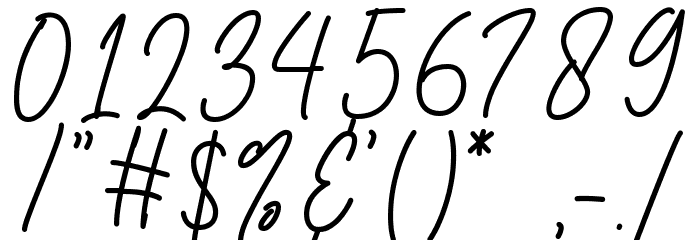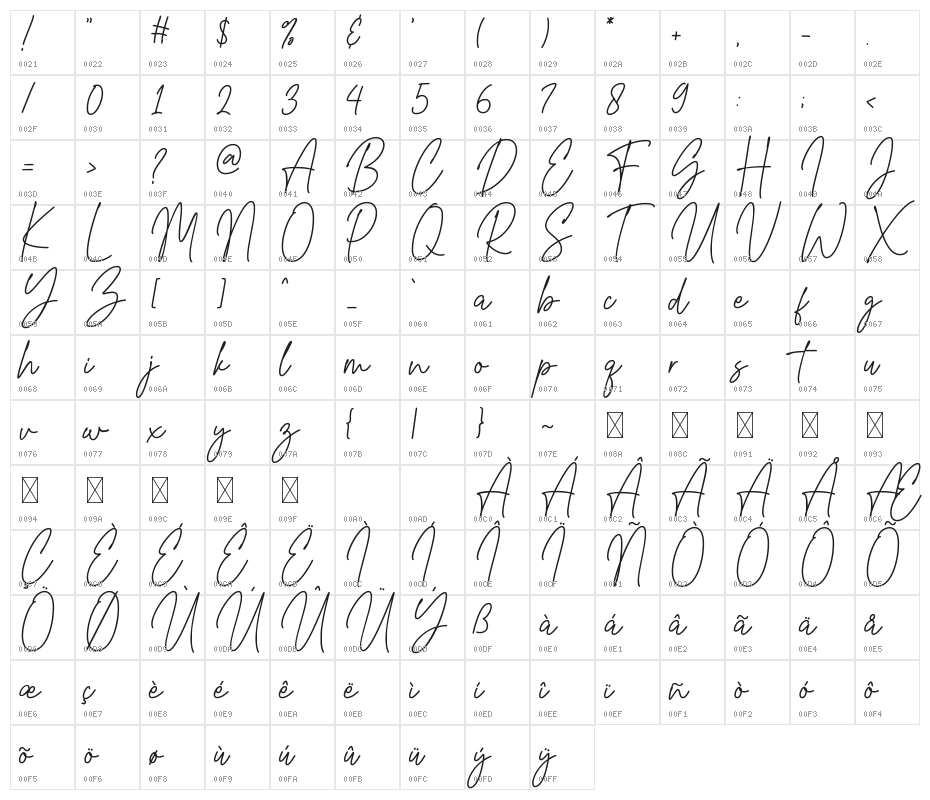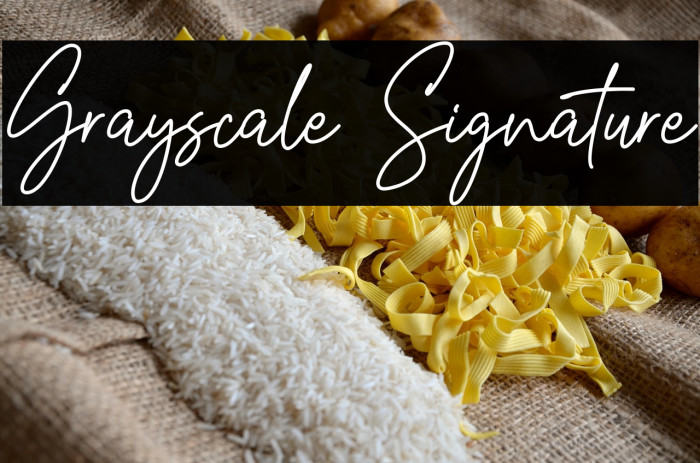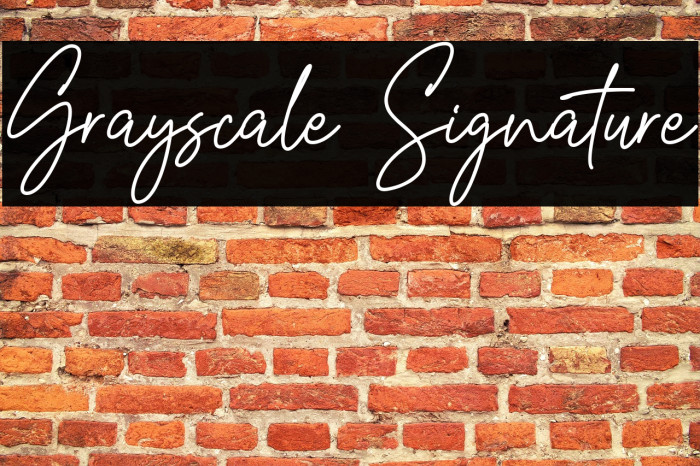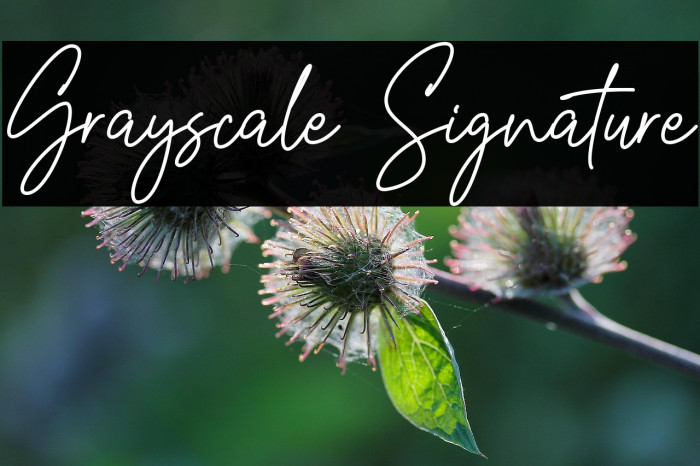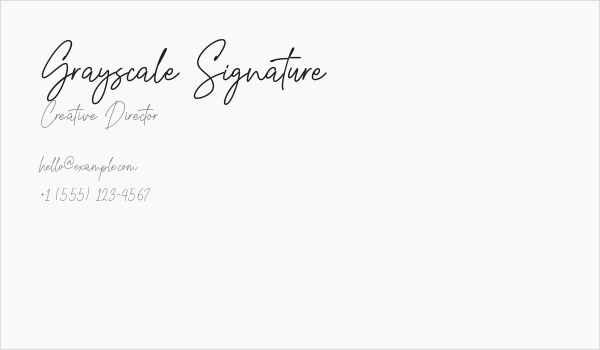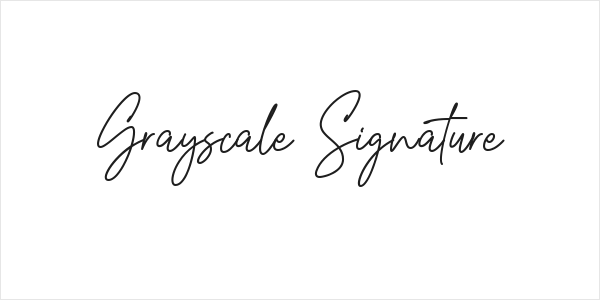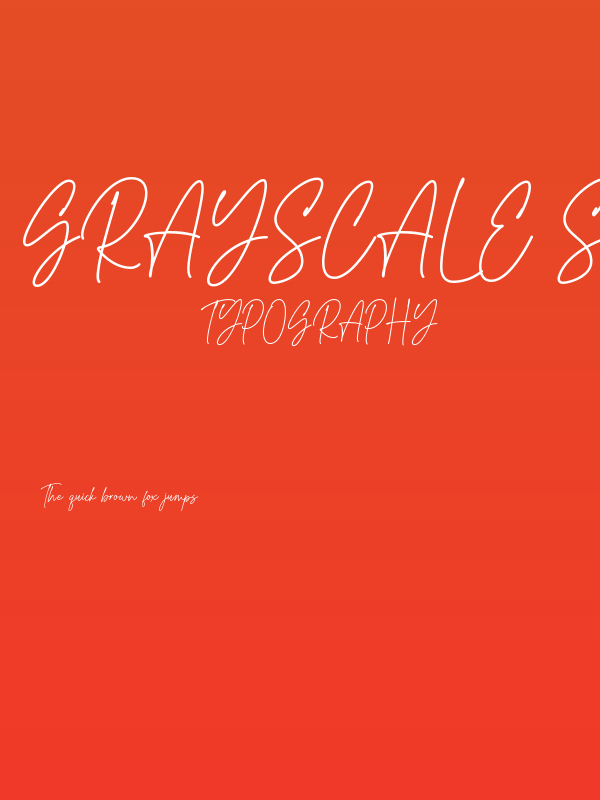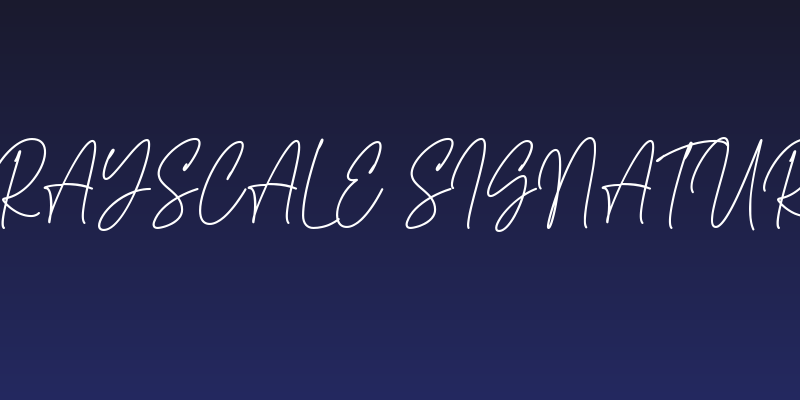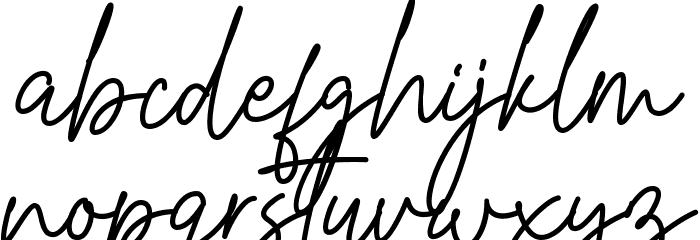
Grayscale Signature Font
Grayscale Signature Description
This font exhibits a fluid, cursive style that mimics the elegance of a handwritten signature. The uppercase letters are tall and slender, with a consistent slant that adds a dynamic flow to the text. The lowercase letters maintain a smooth, connected script, enhancing the overall cohesiveness. Numbers and special characters follow the same cursive theme, ensuring uniformity across all elements. The strokes are thin and delicate, providing a graceful appearance that is both sophisticated and approachable.
Overall StyleElegant
Use CaseLogos, Invitations, Personal Branding
Proposed ProjectsIdeal for personal branding, invitations, greeting cards, and elegant logos.